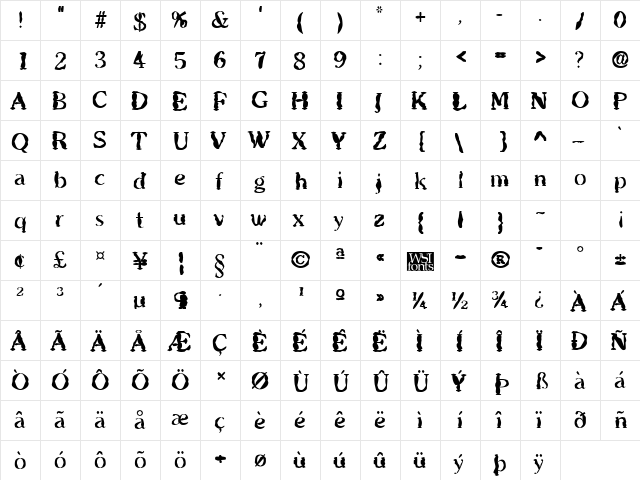
VeryMangledRoman Regular
Design Context for VeryMangledRoman Typeface
VeryMangledRoman is a composed and adaptable typeface that performs quietly and consistently across a wide range of design contexts.